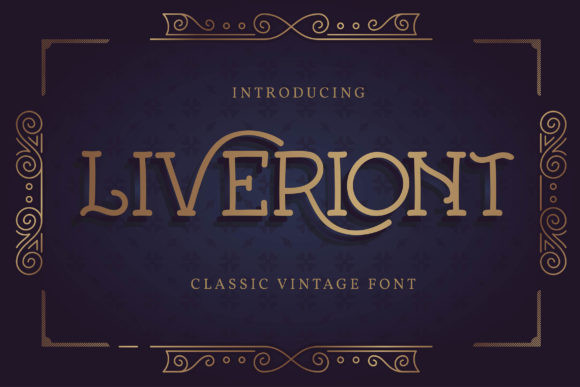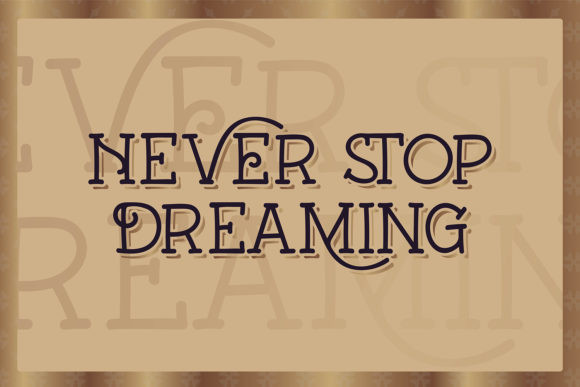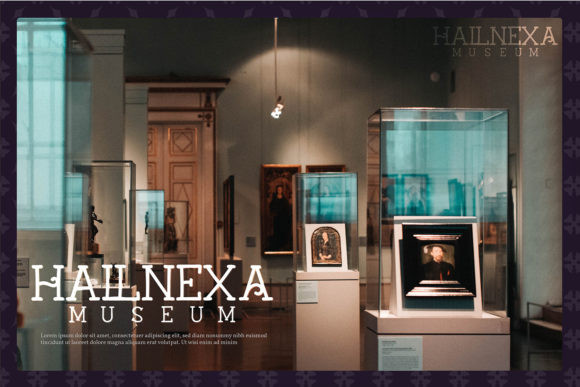
Liveriont Font
Liveriont is an elegant and vintage styled display font. No matter the topic, this font will be an incredibly asset to your fonts’ library, as it has the potential to elevate any creation.